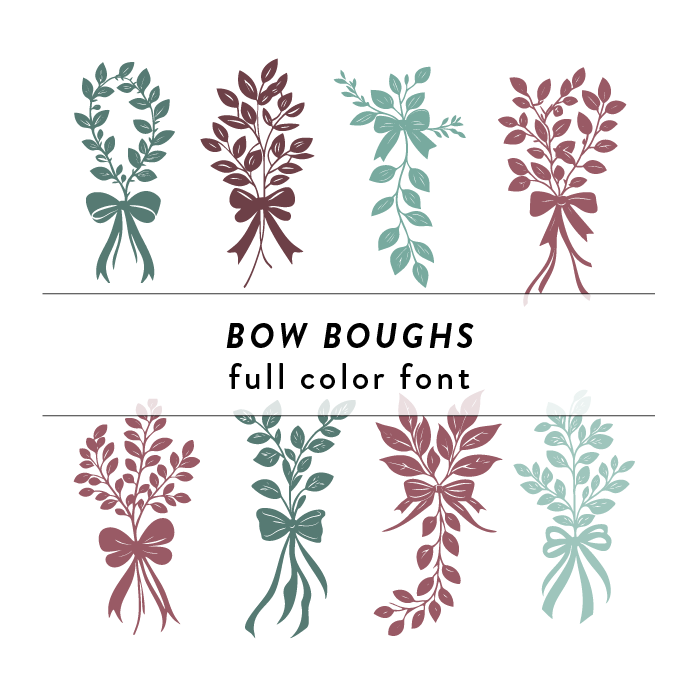
Bow Boughs 1 Full Color Font is a whimsical and elegant font design inspired by nature. Featuring intricate tree branches and delicate leaves, this font is perfect for wedding invitations, engagement announcements, and other special occasions. Its unique style adds a touch of charm and sophistication to any project. This font is a OTF craft font that will appear in color only when used with the silhouette software.